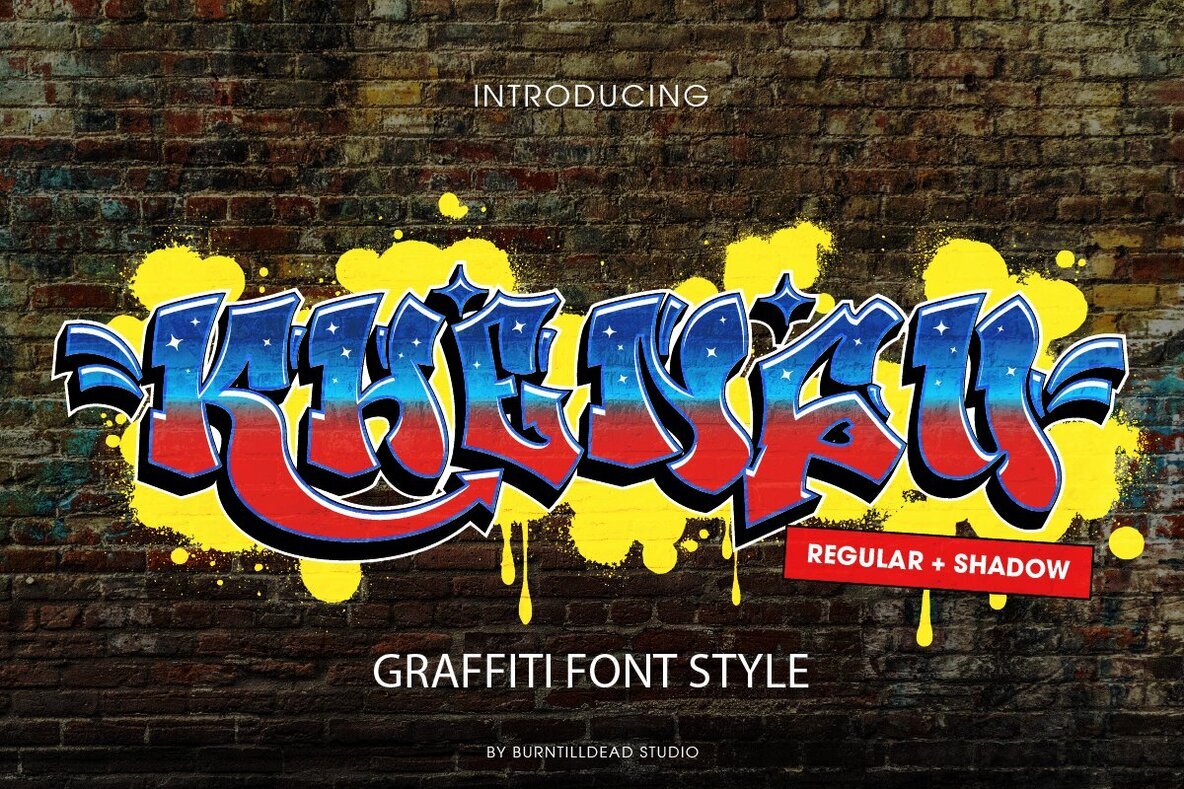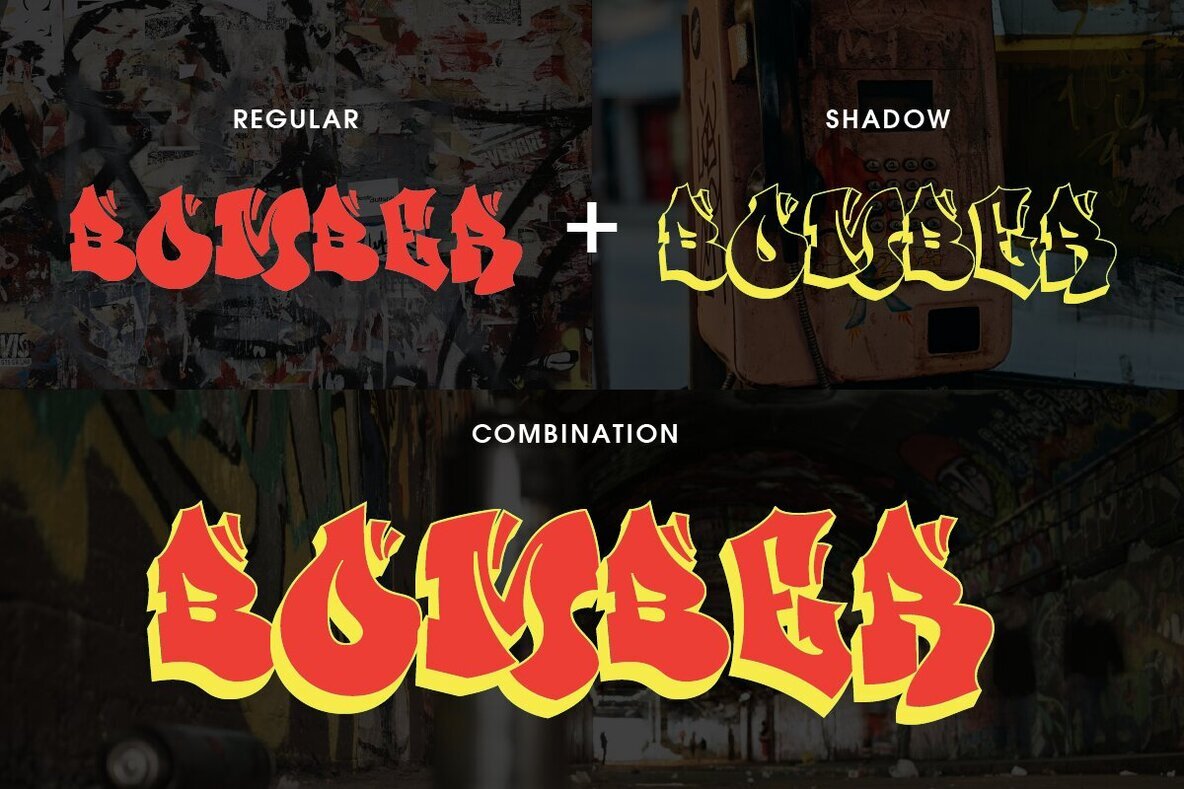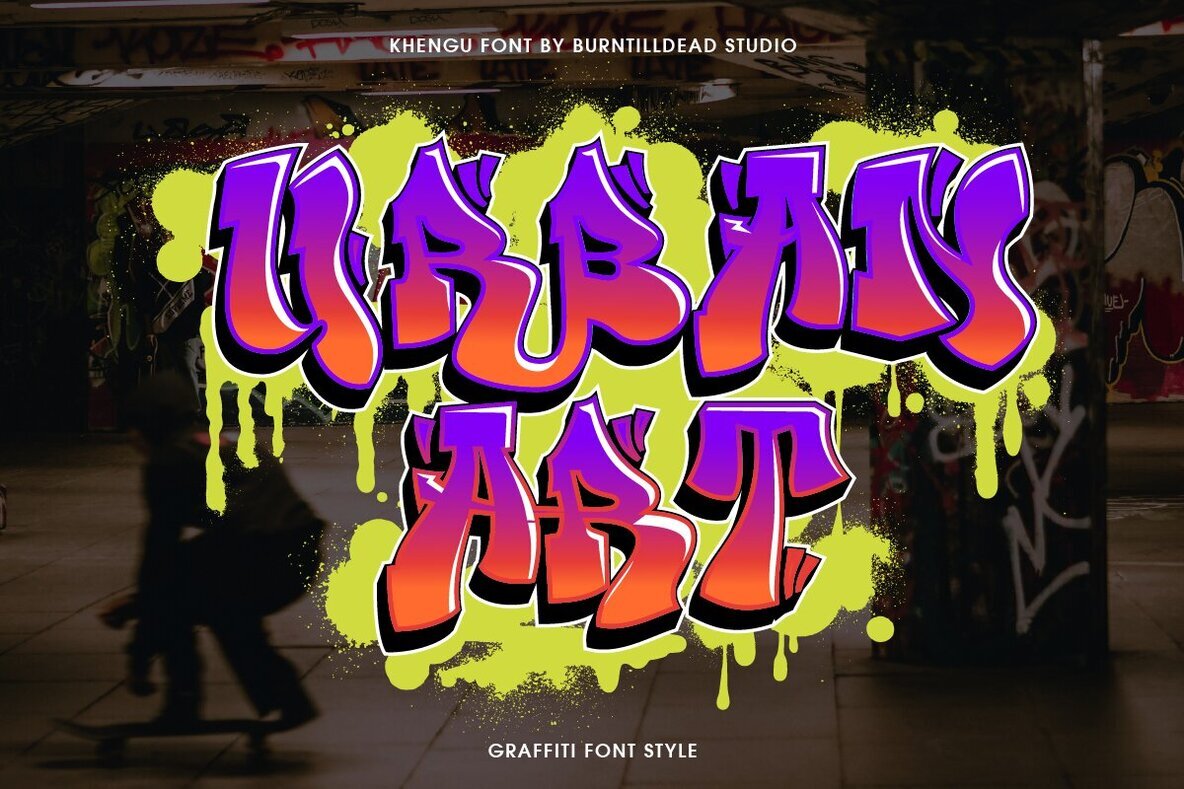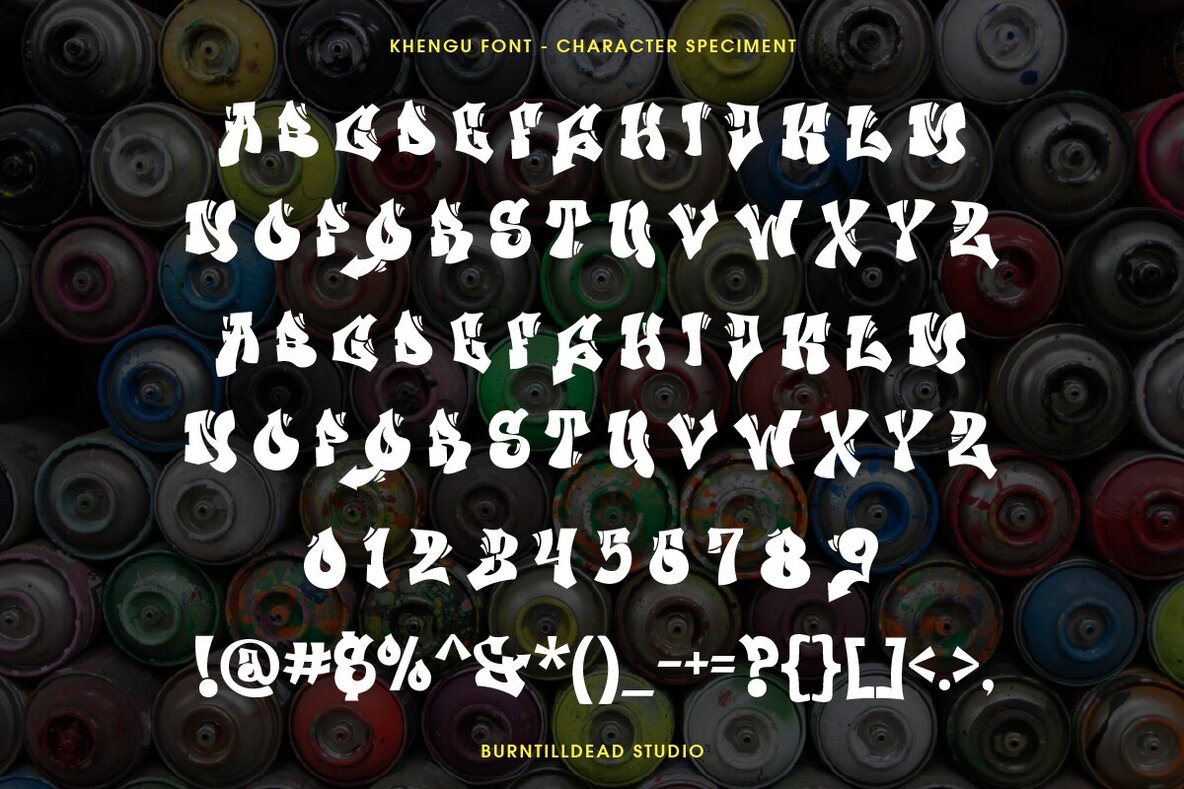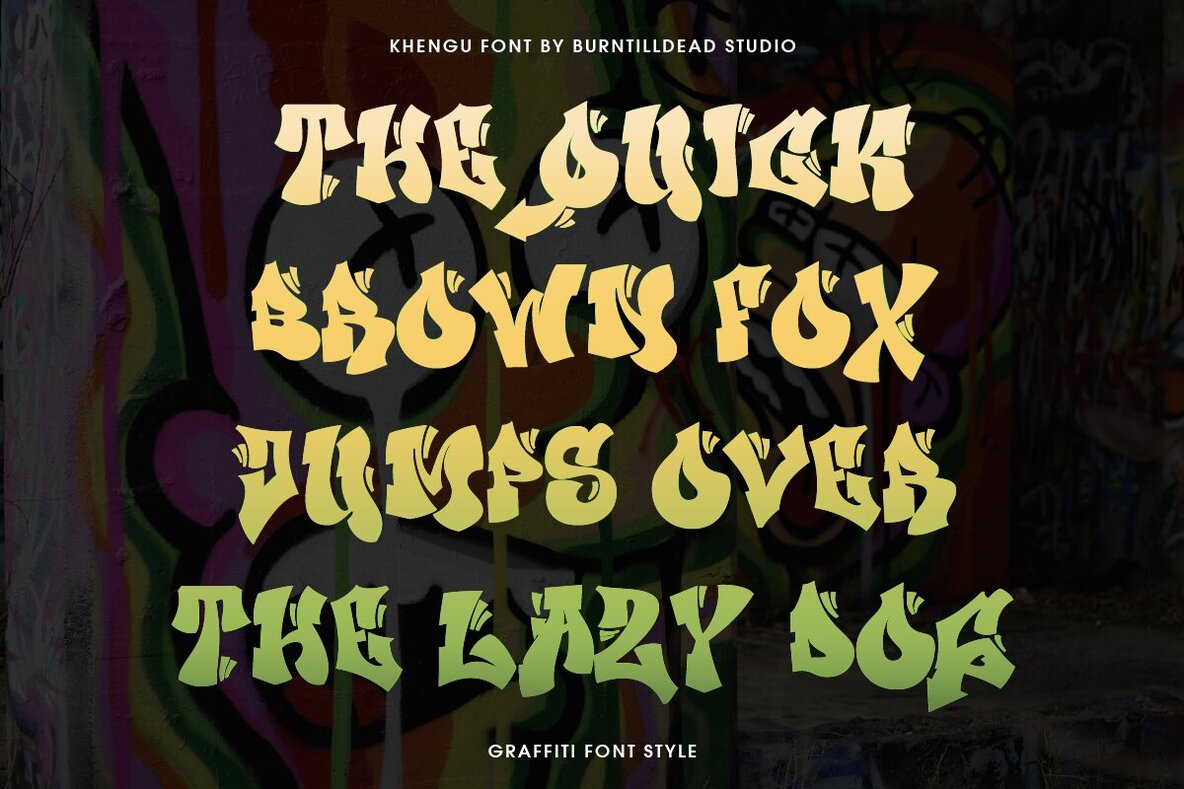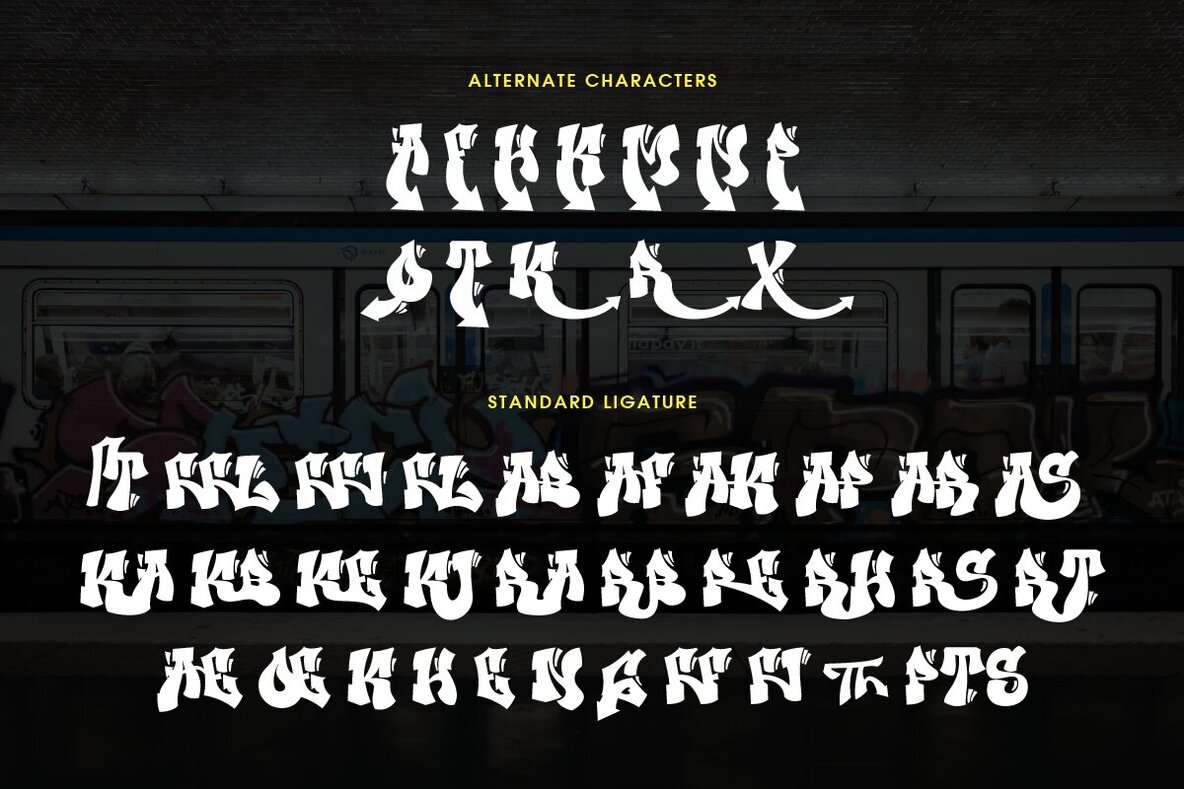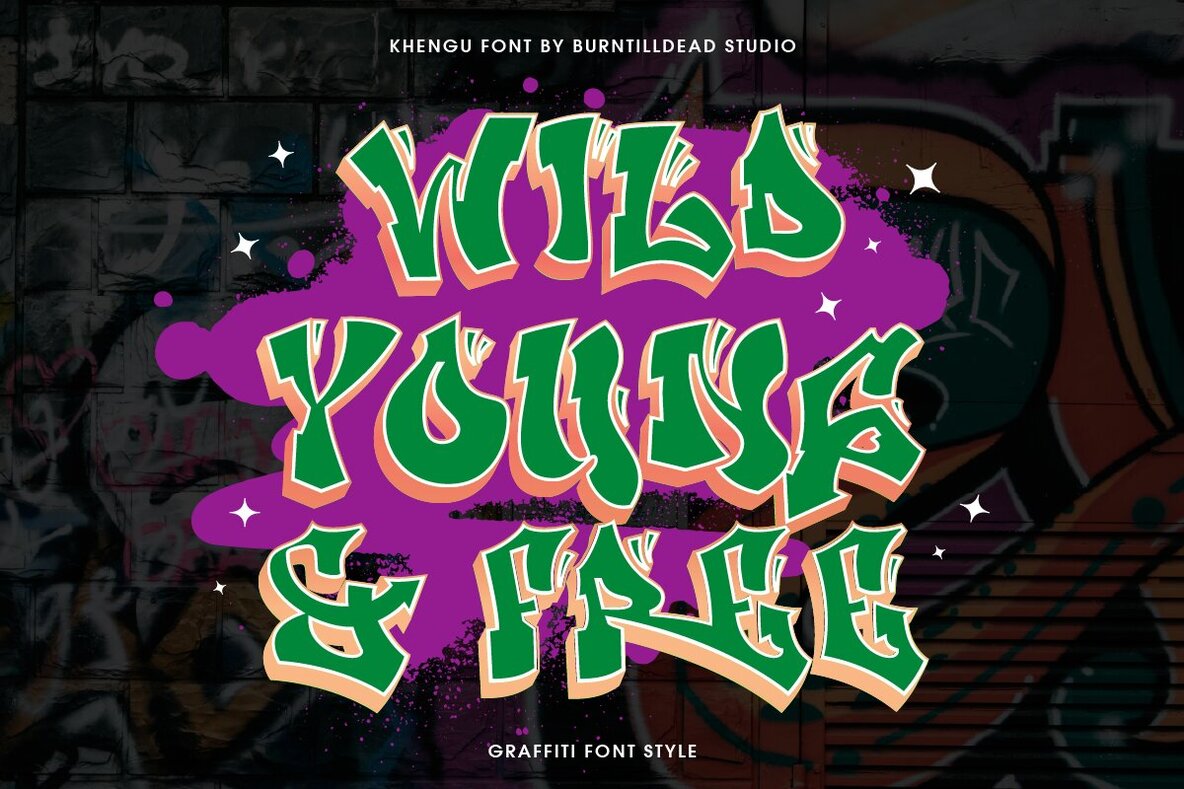
Khengu Font
Khengu Regular
Khengu Shadow
Khengu is a bold and dynamic graffiti-style font that captures urban energy, perfect for designers looking to make a statement. Available in two styles—regular and shadow—this font provides versatility and creativity, allowing you to craft unique, expressive lettering combinations. Khengu comes with a variety of alternates and standard ligatures to offer flexible customization, ideal for projects like posters, album covers, streetwear branding, or digital artwork.
This font features a comprehensive A-Z set with both uppercase and lowercase letters, numbers, punctuation, and includes multilingual support. Its extensive range of alternates and ligatures enables designers to infuse their work with a personalized touch, making any design project stand out. By incorporating Khengu into your design arsenal, you can easily create eye-catching graffiti designs that capture attention and convey urban sophistication.